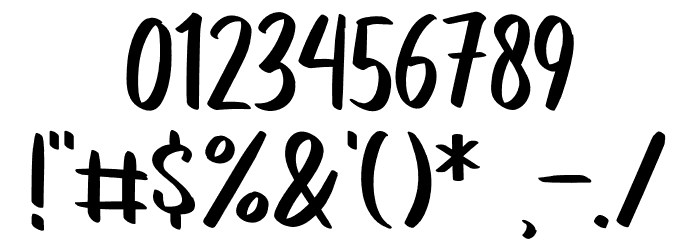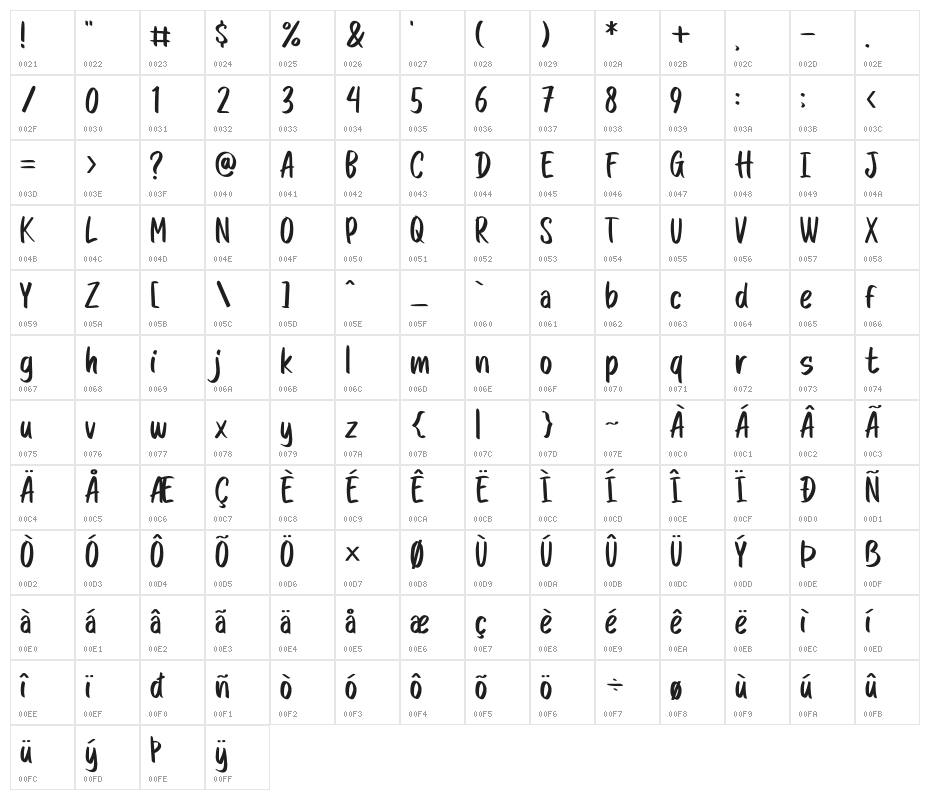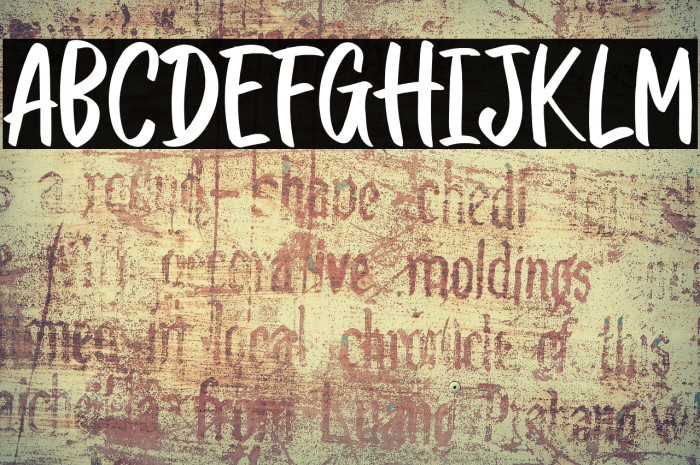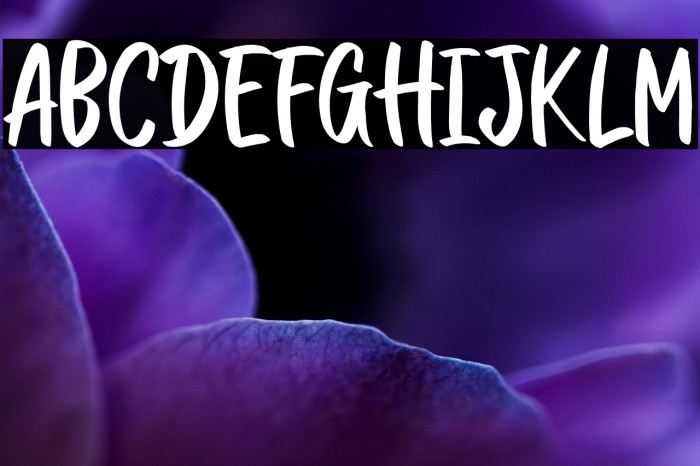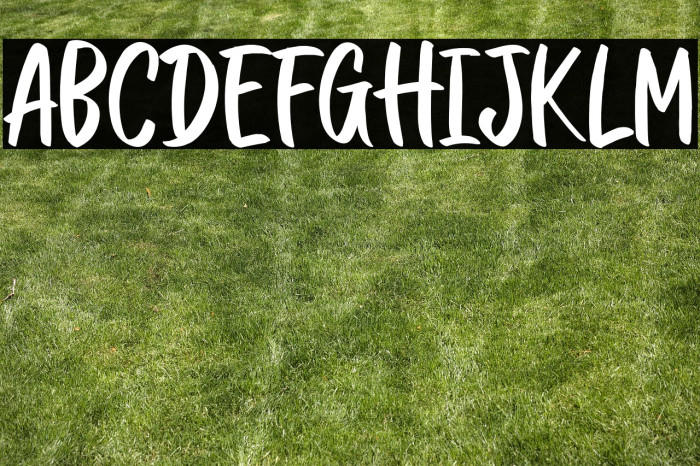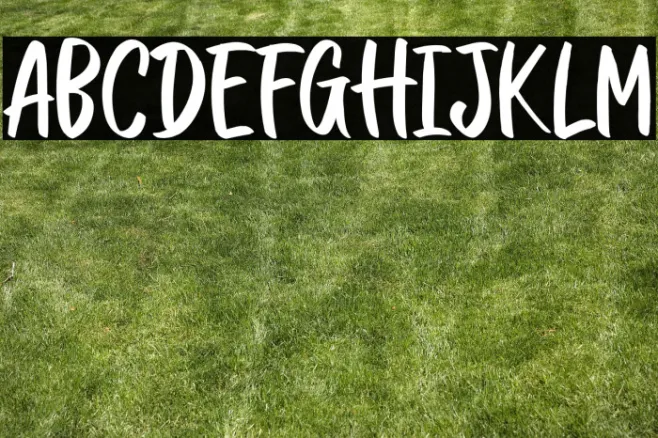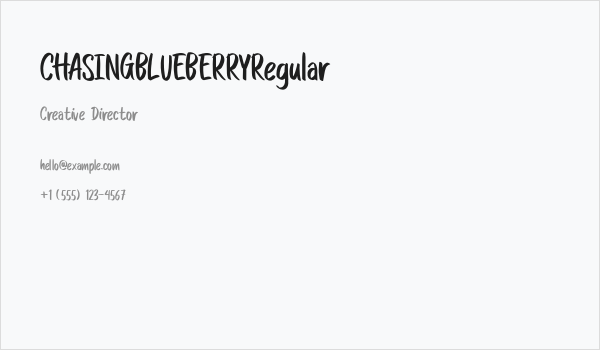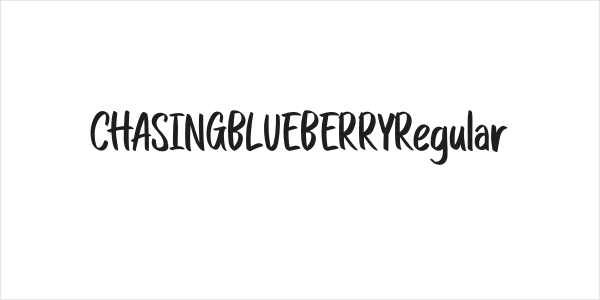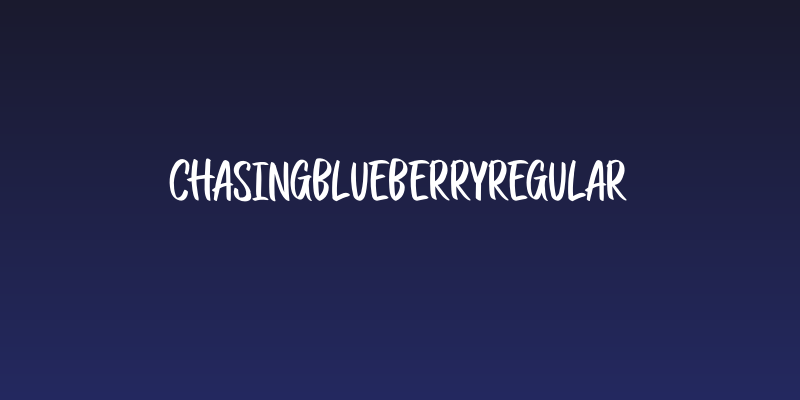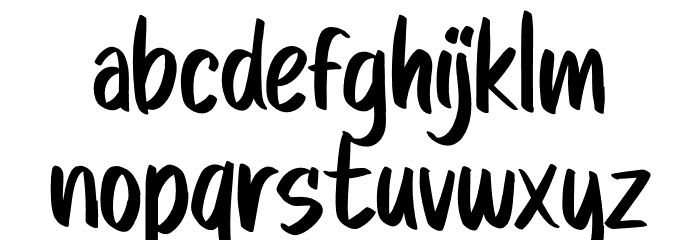
CHASINGBLUEBERRYRegular Font
CHASINGBLUEBERRYRegular Description
This font features a playful and energetic handwritten style, characterized by its bold and slightly irregular strokes. The letters have a casual, friendly appearance, with a slight slant that adds to the dynamic feel. The uppercase and lowercase letters are distinct, with the lowercase letters maintaining a consistent height, contributing to a cohesive look. The numerals and special characters follow the same lively style, making them easily readable while retaining the font's unique personality. This font is perfect for projects that require a touch of whimsy and approachability.
| Use Case | Headlines, Logos, Social Media |
| Proposed Projects | Ideal for greeting cards, children's books, playful branding, and social media graphics. |